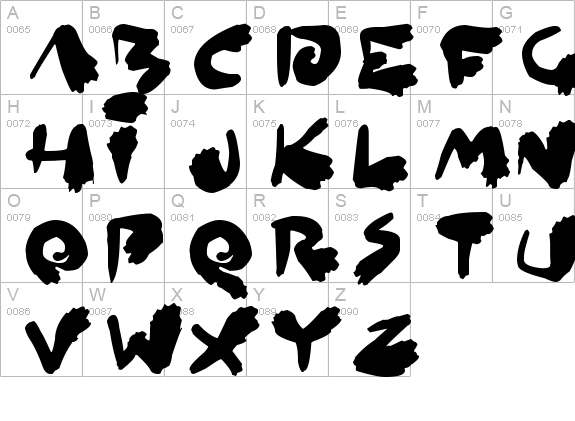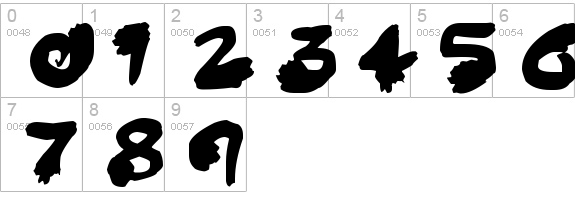
Inked Out Font Details
Inked Out is a free for personal use font in the Script > Brush category, designed by Darrell Flood. It has been downloaded 18 times and is available for Windows, Mac and Linux.
Inked Out font is a striking and bold display typeface that exudes a rebellious and edgy vibe. Its hand-drawn style captures the essence of street art and tattoo culture, making it perfect for projects that require a touch of urban flair. The rough edges and uneven strokes give this font a raw and authentic feel, adding character and personality to any design.